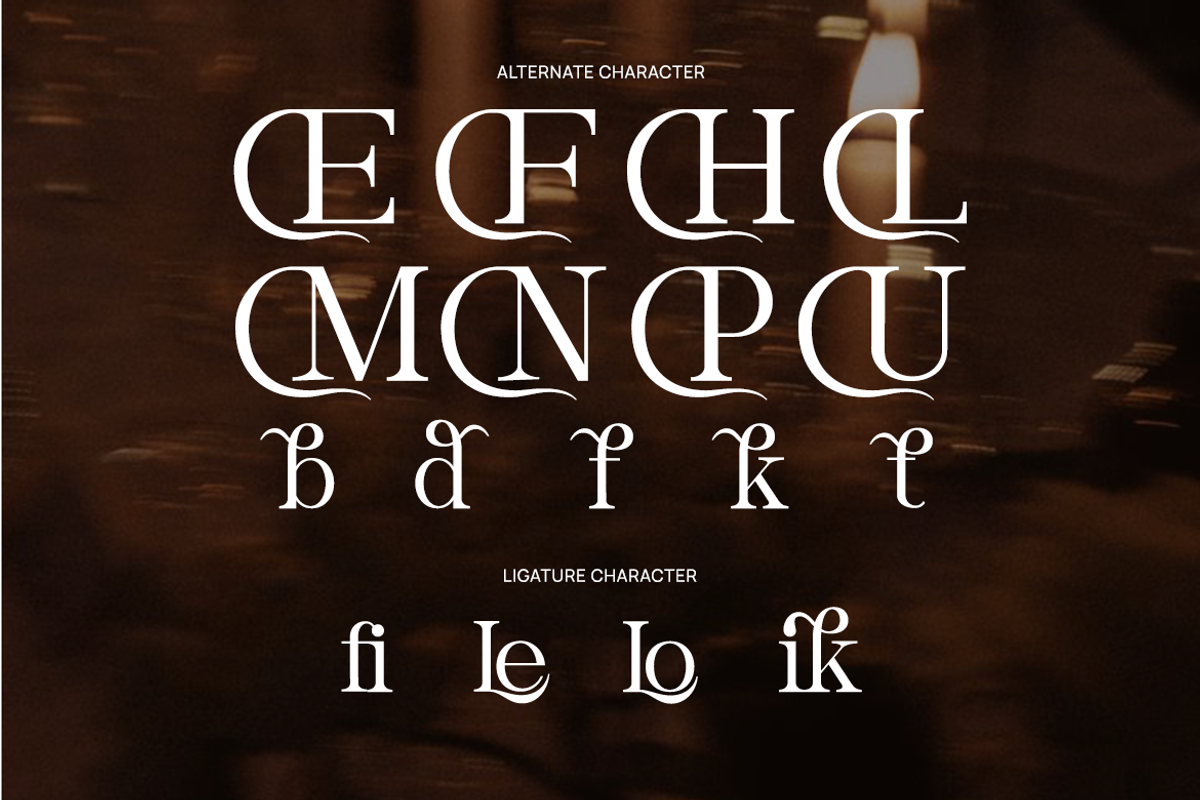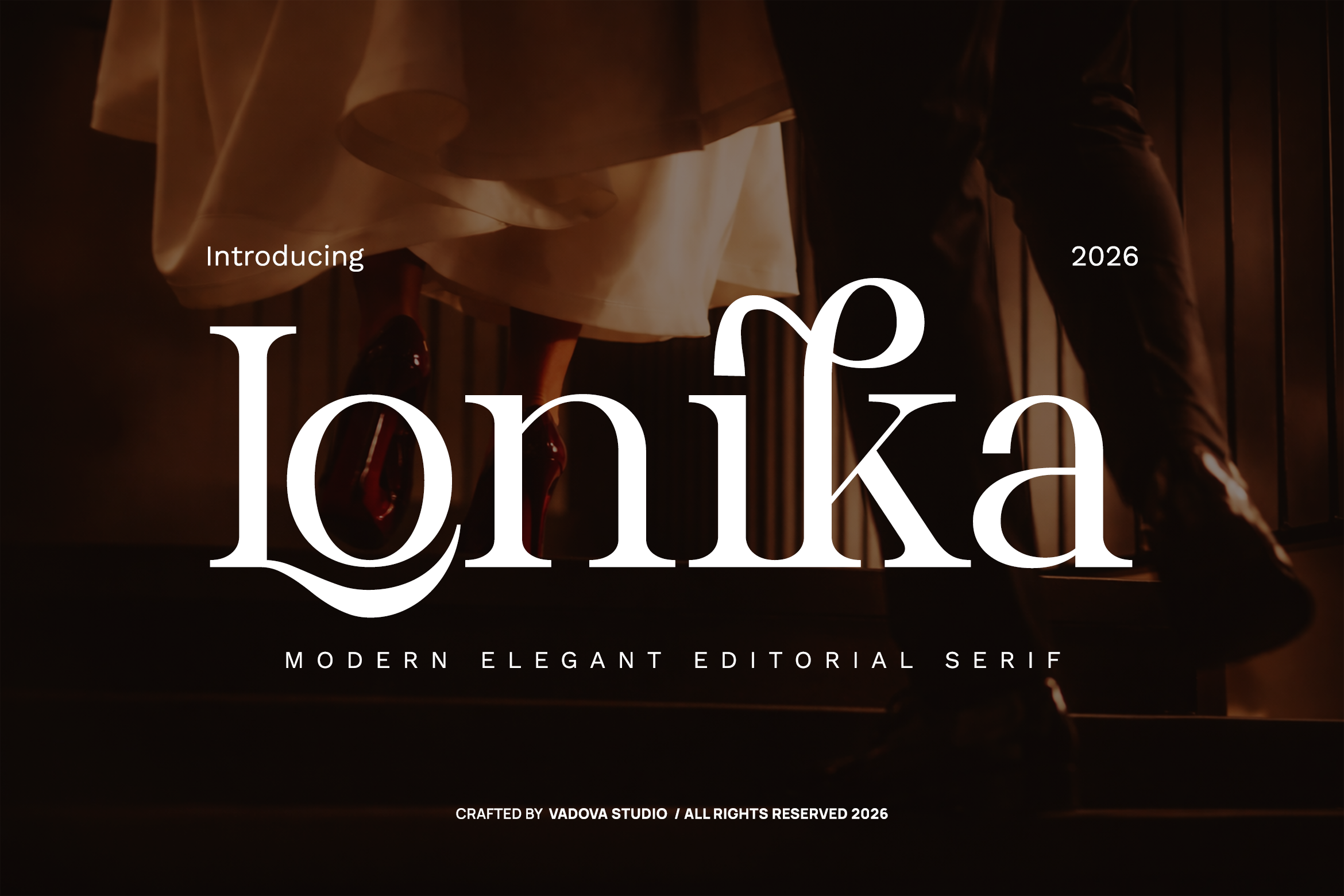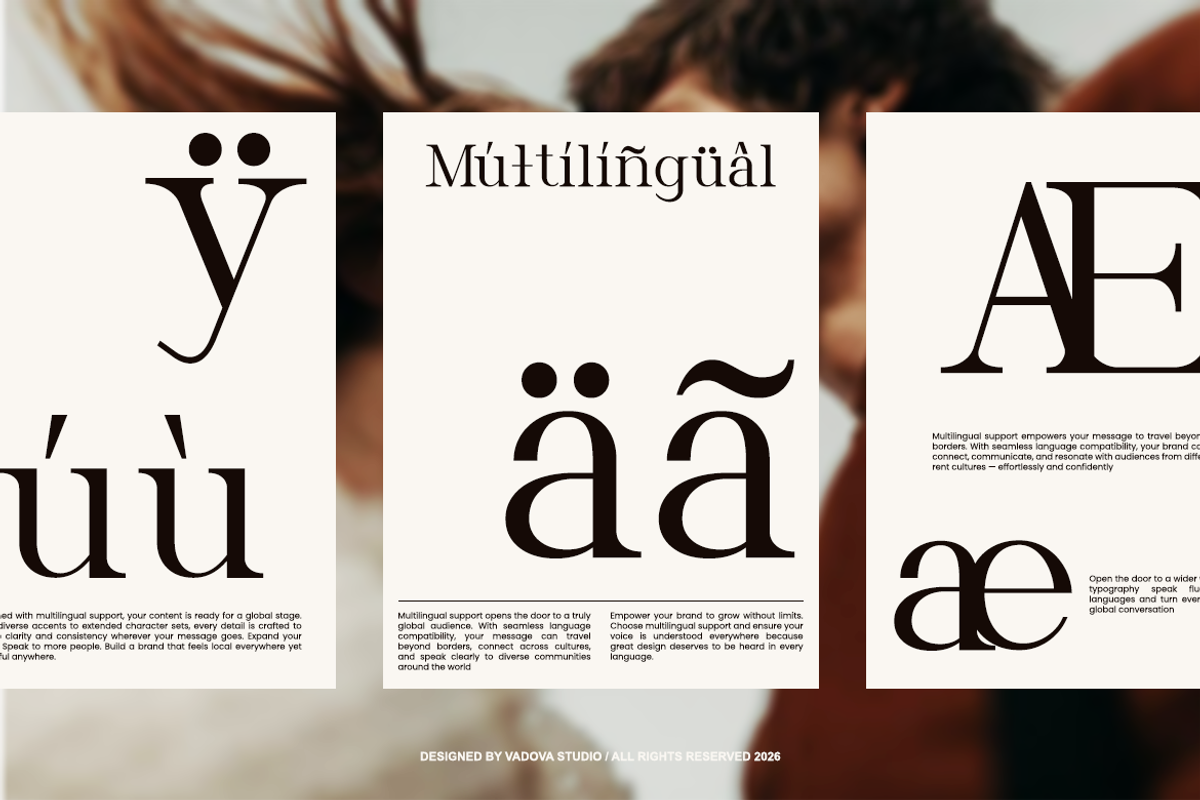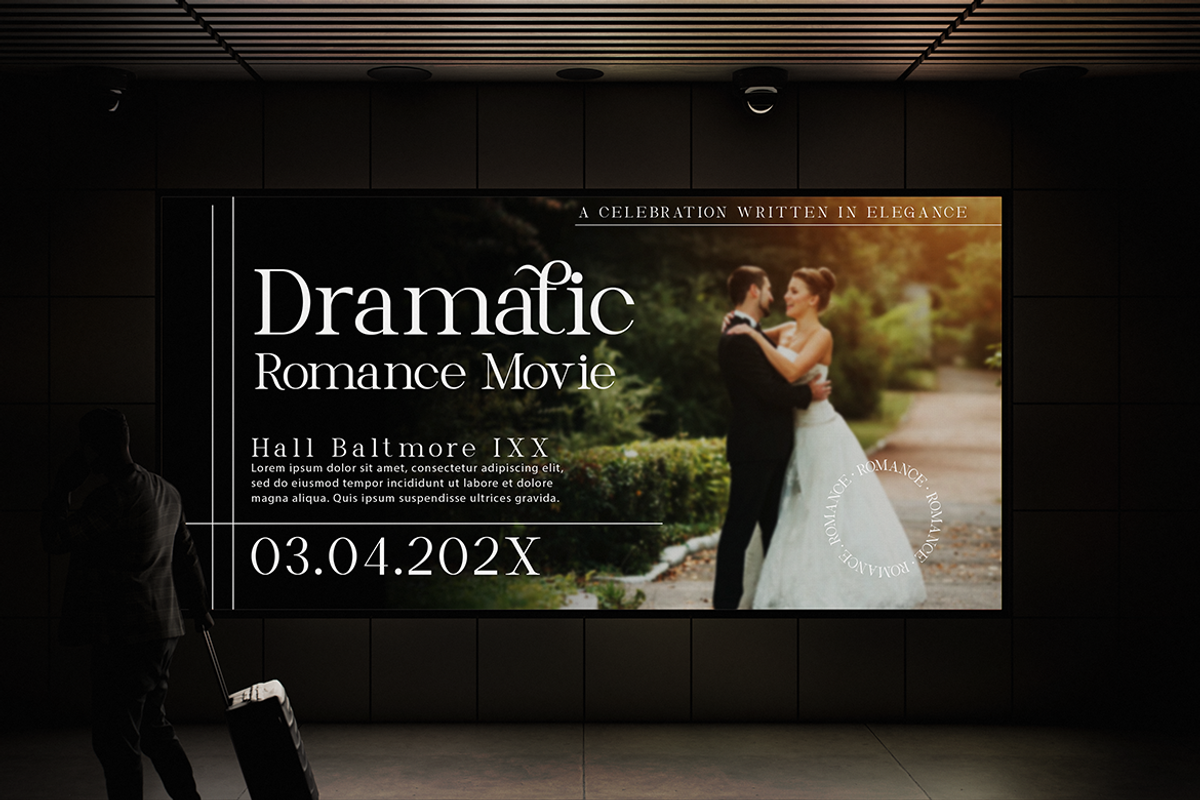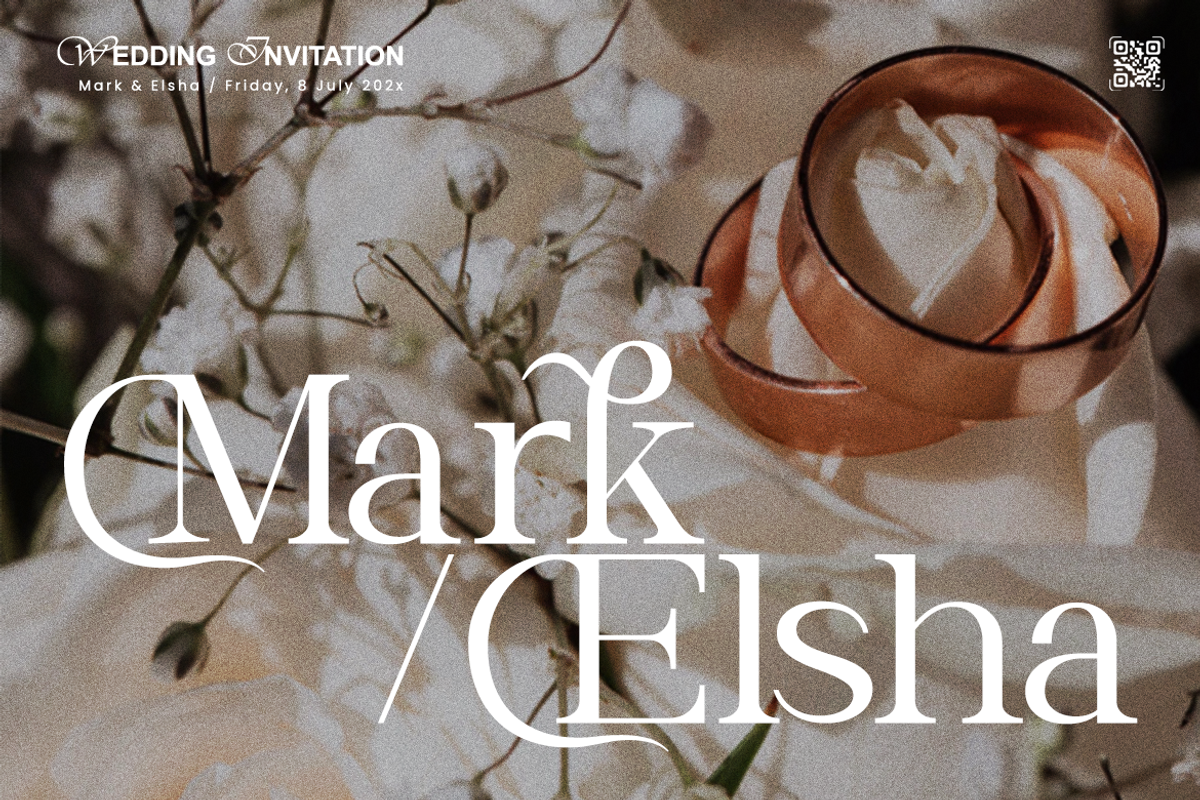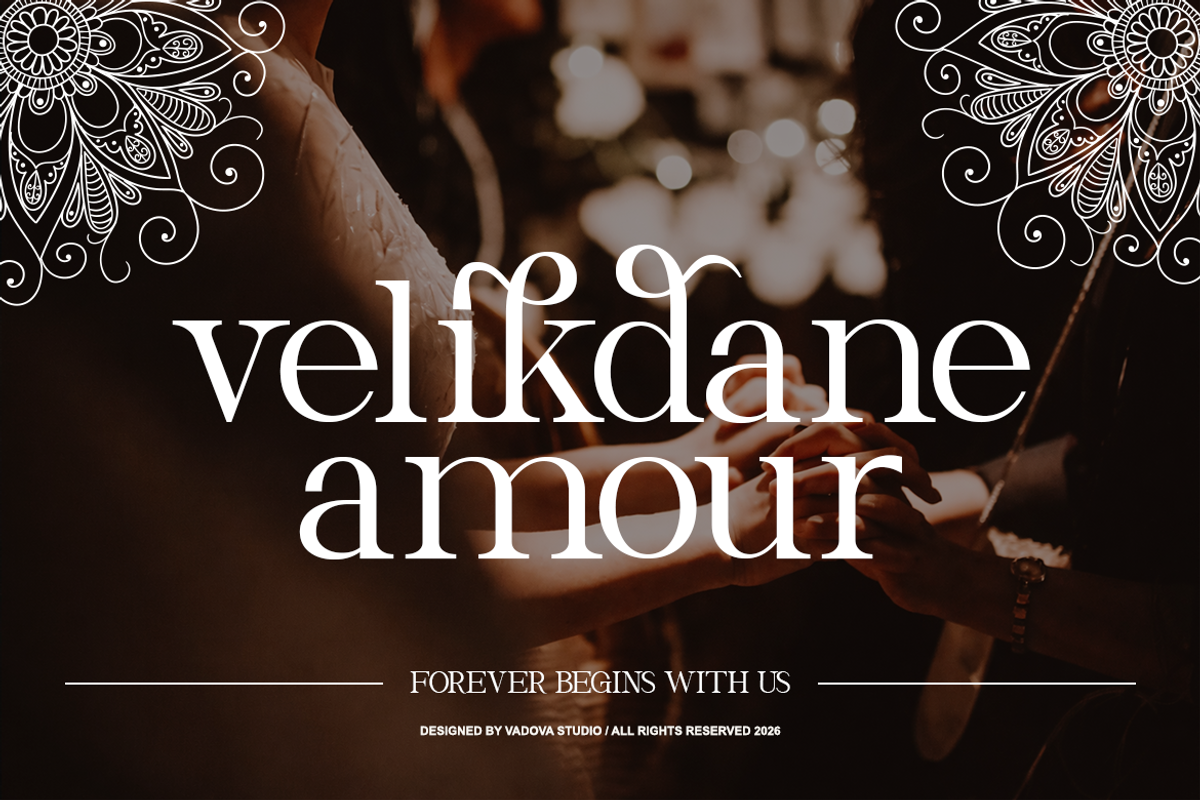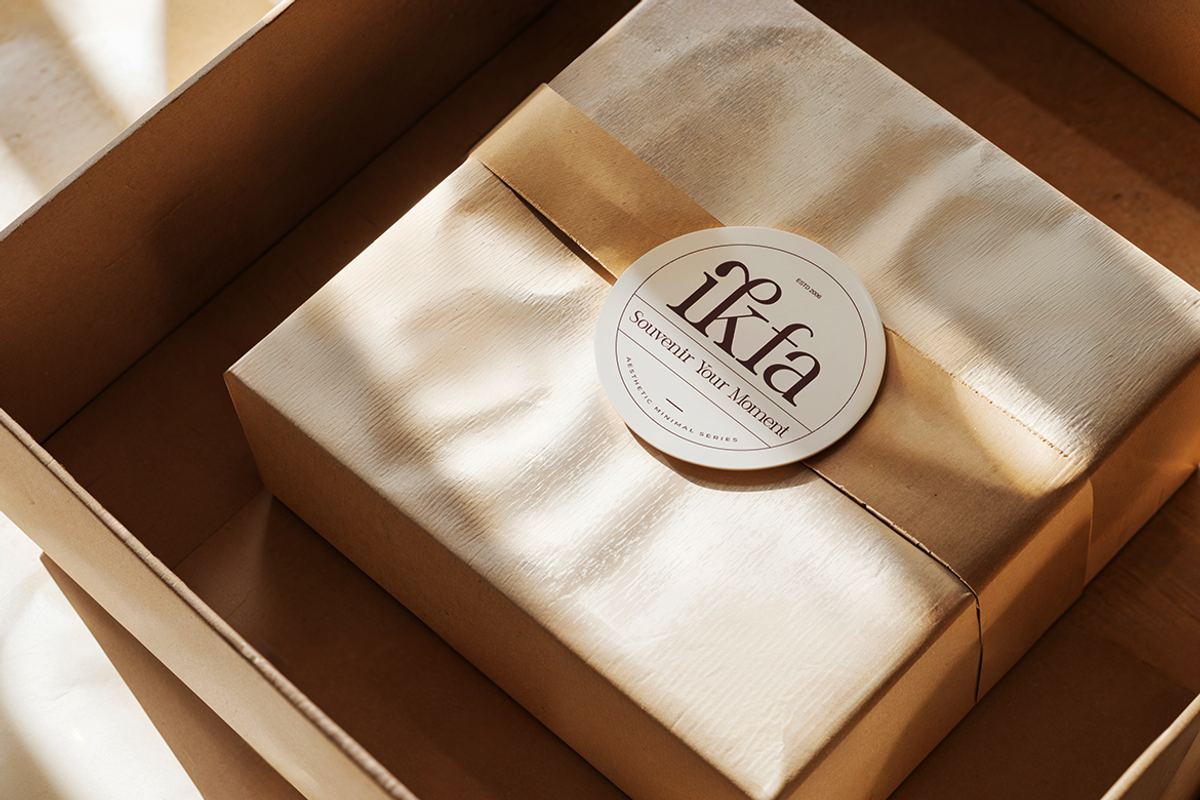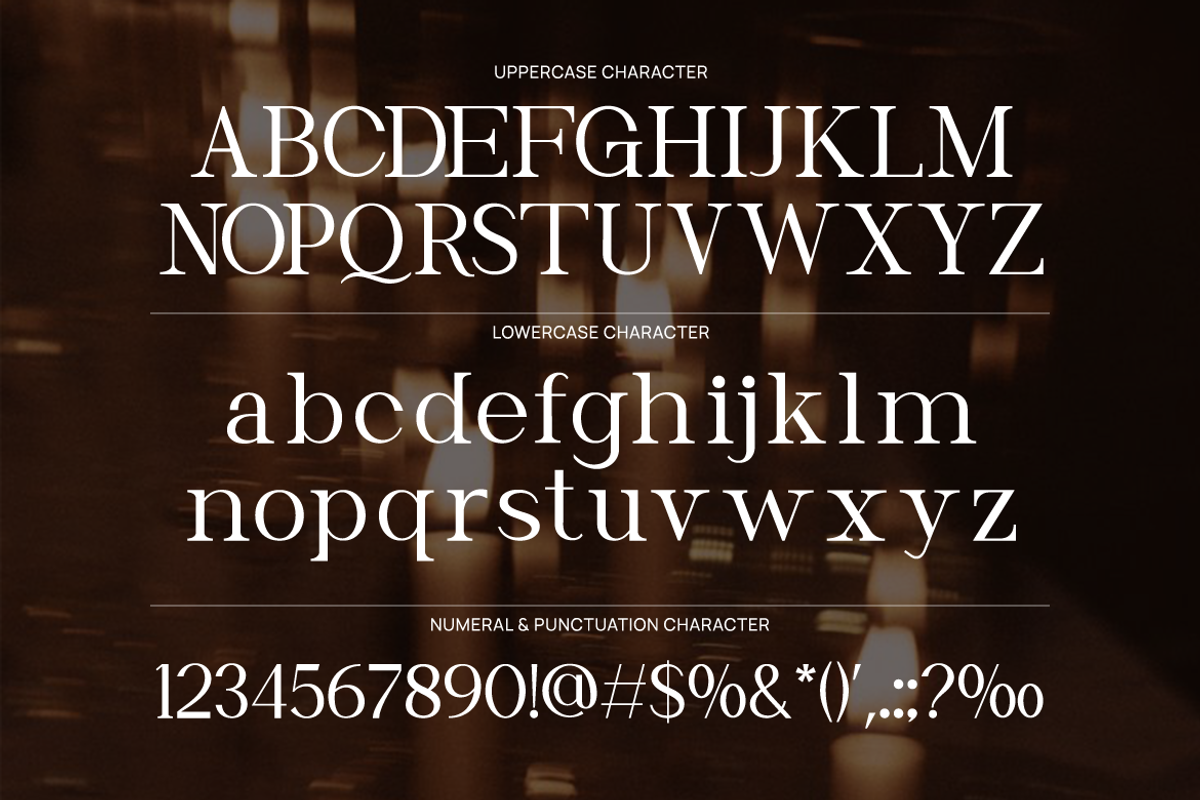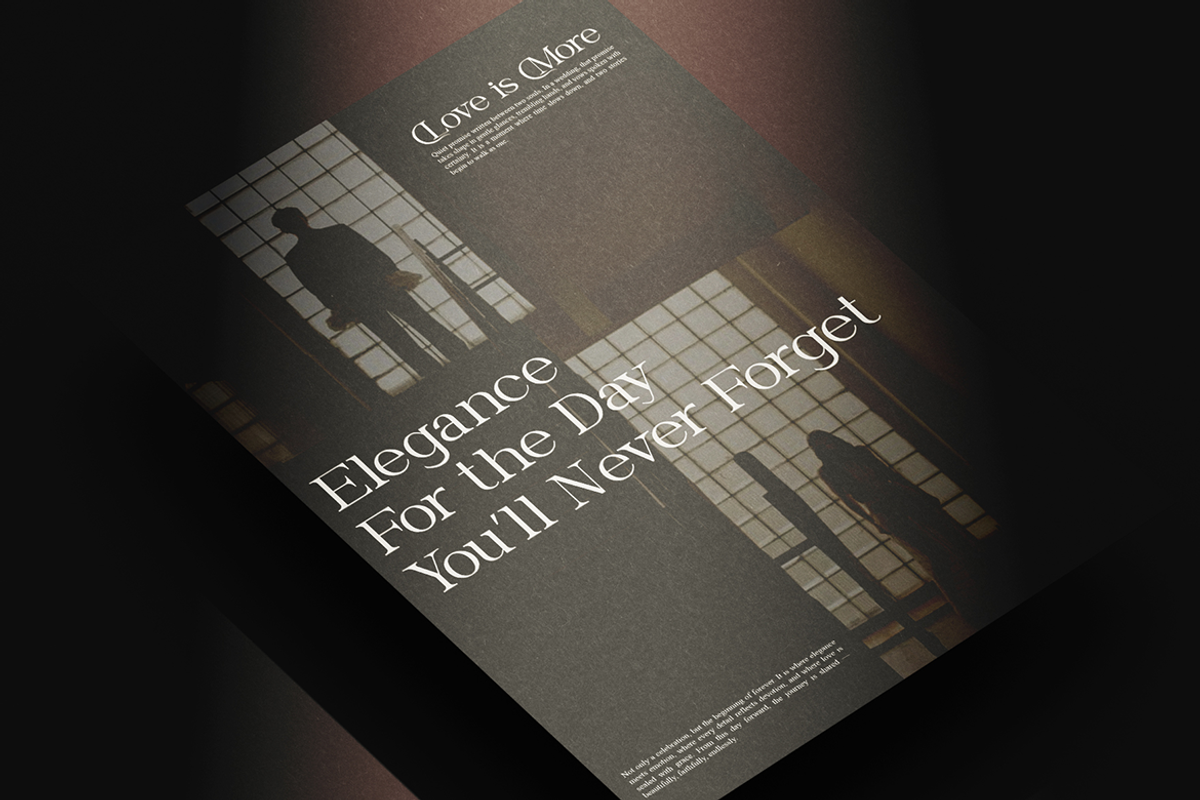
Lonika Modern Elegant Serif Font
Lonika is a refined modern editorial serif typeface designed to bring elegance, sophistication, and clarity to contemporary typography. With its graceful curves, high-contrast strokes, and carefully crafted ligatures, Lonika delivers a luxurious and polished look suitable for high-end design projects. The typeface blends classic serif traditions with modern editorial styling, making it perfect for magazine layouts, fashion branding, luxury packaging, and premium visual identities.
Lonika is ideal for projects that require refined typography and elegant visual presence. Its modern editorial style makes it perfect for fashion magazines, luxury branding, premium packaging, logo design, editorial layouts, beauty brands, advertising campaigns, and sophisticated visual identities.
- Modern editorial serif design with refined high-contrast strokes
- Elegant ligatures and alternate characters for stylish typography
- Graceful curves and sharp serifs that enhance visual sophistication
- Balanced proportions that maintain clarity and readability
- Carefully crafted spacing for both striking headlines and refined editorial layouts
- Luxury brand identities seeking an elegant and sophisticated tone
- Editorial magazines, fashion lookbooks, and premium publications
- Beauty, cosmetics, and high-end product packaging design
- Logo design and visual identities for boutique brands
- Social media graphics and marketing materials for luxury businesses
Create refined typography with Lonika and bring modern editorial elegance to your design